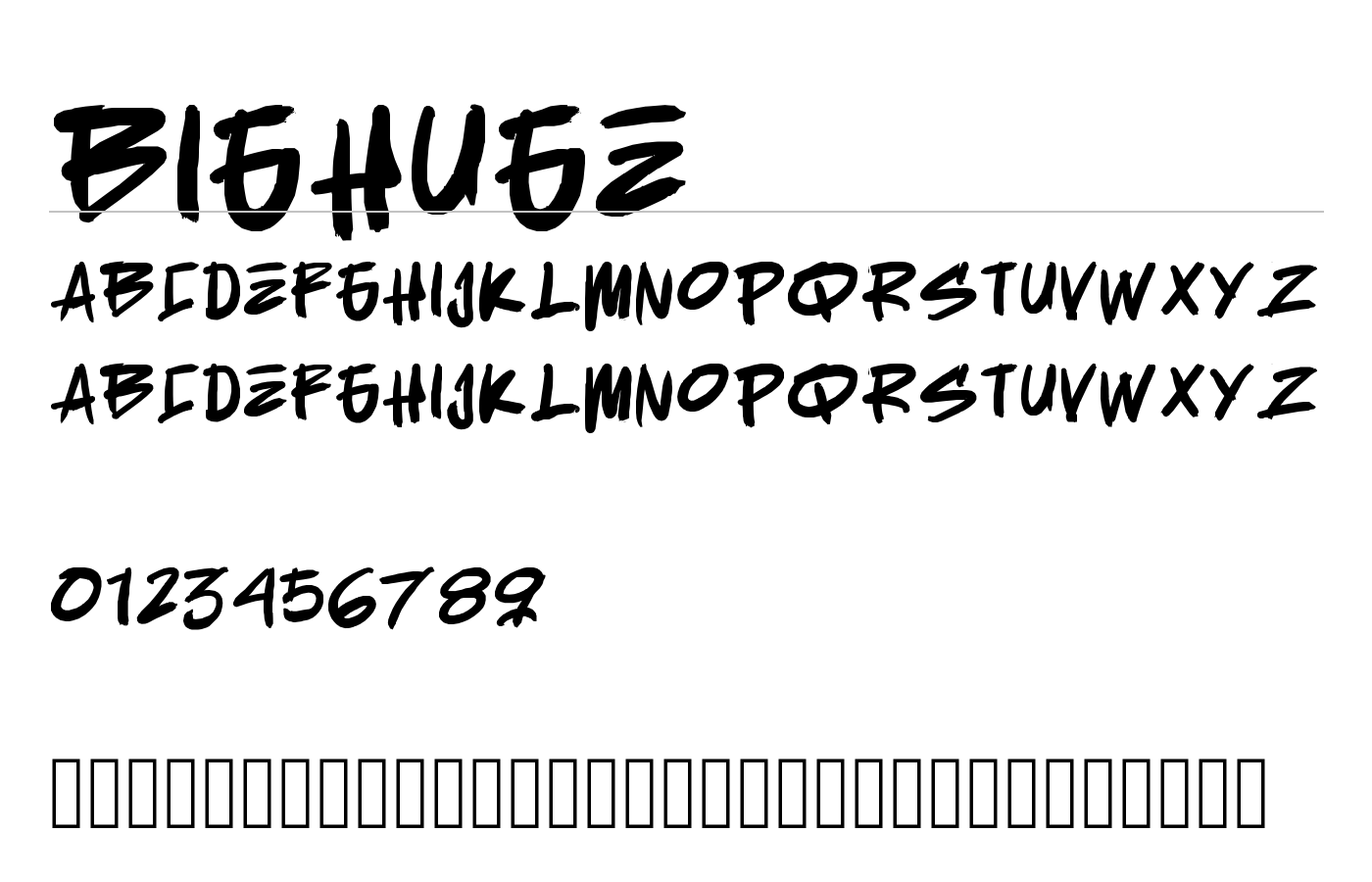
BIGHUGE is a bold, expressive handwritten font with a strong, dynamic presence created by thick, brush-like strokes and a slightly irregular, energetic style. Its uppercase-only characters feature playful, uneven shapes, giving it a casual, artistic vibe that works great for attention-grabbing headlines, logos, and creative branding projects. This font adds a sense of personality and spontaneity, perfect for designs that want to feel bold and approachable.
BIGHUGE Font